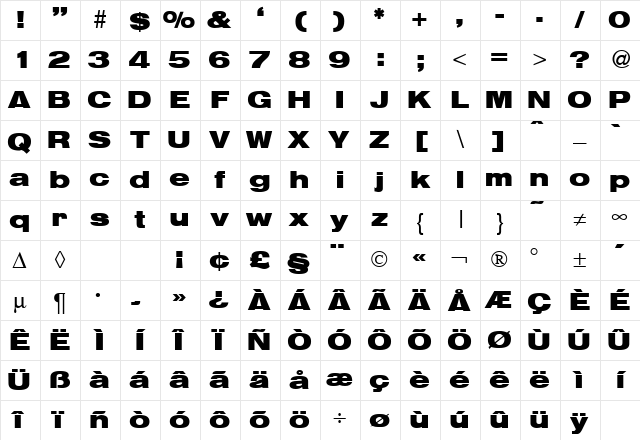
Complete HegelExtended DB Bold glyph index. Displaying only characters natively supported by HegelExtended DB Bold font.
HegelExtended DB is a composed and adaptable typeface that performs quietly and consistently across a wide range of design contexts. Its bold stroke weight gives it real presence on the page.